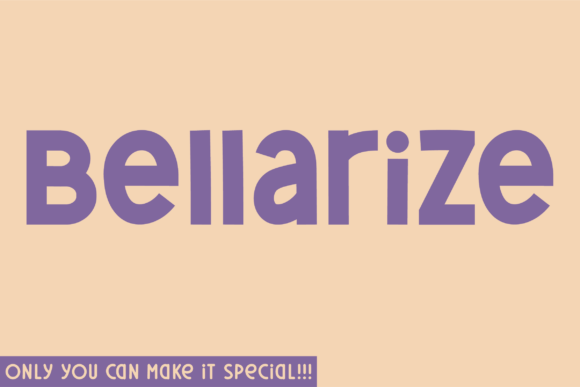
Have you ever stared at a blank canvas, desperately searching for the perfect font to bring your idea to life? It’s a feeling we’ve all been there, and it’s what makes discovering the right font such a thrill. Whether you’re a seasoned designer or a creative enthusiast, finding the perfect font can be the difference between a good project and a great one.
That’s where the Bellarize Font comes in – a natural sans serif font that’s designed to make a statement without overpowering your message. With its unique and intriguing style, this font is perfect for quotes, notes, tees, and any product design project that needs a touch of elegance. As a designer, you’ll appreciate the versatility and value that the Bellarize Font brings to your work.
Bellarize Font Key Features
- Font Family: Bellarize Font is a high-quality, professional font family designed for various applications.
- Character Set: Bellarize Font includes a wide range of characters, including Latin, Cyrillic, and Greek alphabets, as well as punctuation and symbols.
- Resolution and Size: The font is designed for high-resolution displays and can be used at various sizes, from 8pt to 120pt, ensuring readability and clarity.
- Unique Characteristics: Bellarize Font features a unique blend of modern and classic styles, with a distinctive flair that sets it apart from other fonts.
Bellarize Font Review
Overall, I was excited to dive into the world of Bellarize Font, and I have to say, there are some great aspects to this font. ✨ The first thing that caught my attention was its unique and elegant design. It’s perfect for creating a luxurious and sophisticated look in any project. ✨ I also appreciate how versatile it is, suitable for a wide range of applications, from headings to body text.
Another great feature is its excellent legibility, making it perfect for long-form content. The font is also highly customizable, allowing you to adjust the style to fit your specific needs.
While Bellarize Font has a lot going for it, there are some limitations that prevent it from being a top-tier font.
- ⚠️ Limited character set: The font is missing some special characters, which may cause issues for users who need to display specific symbols.
- ⚠️ Not ideal for small text: The font’s elegant design can make it difficult to read at small font sizes, which may be a concern for projects that require a lot of text.
In conclusion, Bellarize Font is a solid choice for any project that requires a sophisticated and elegant look. While it has some limitations, its unique design and excellent legibility make it a great option for many users. With some customization and careful planning, you can create stunning designs with this font.
Bellarize Font: A Practical Application Guide
The Bellarize Font is ideal for use in a variety of applications, including:
- Brand logos and identities
- Marketing materials, such as brochures and flyers
- Print materials, such as business cards and letterheads
Getting the Most Out of the Bellarize Font
To get the most out of the Bellarize Font, experiment with different font sizes, colors, and styles. Combine the font with other design elements, such as shapes and graphics, to create a unique and visually appealing design.
Montserrat is a popular sans-serif font that is highly legible and versatile. It is ideal for use in digital products, such as websites and mobile apps, as well as in print materials like brochures and business cards. Montserrat is a great alternative to Bellarize Font as it offers a similar modern and clean aesthetic, but with a more robust and refined feel.
Open Sans is another highly legible sans-serif font that is designed to be readable at a wide range of sizes and resolutions. It is a great choice for use in digital products, as well as in print materials like books and magazines. Open Sans is similar to Bellarize Font in its clean and modern aesthetic, but it has a more open and airy feel.